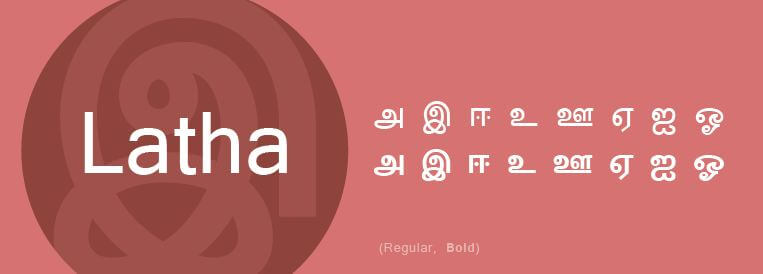
Latha Font
The Latha font is definitely a brush lettered typeface that can be used in various projects. It looks similar to the Zapfino font, which has a beautiful typeface. It reminds me of the Bamini font. You can access it here.
Its uppercase letters and numbers are designed to learn blindfolded, just through touching them (Ie, haptic). It’s available in seven weights and 21 styles, and integrated with every sort are alternate characters, as good as proportional and tabular figures.